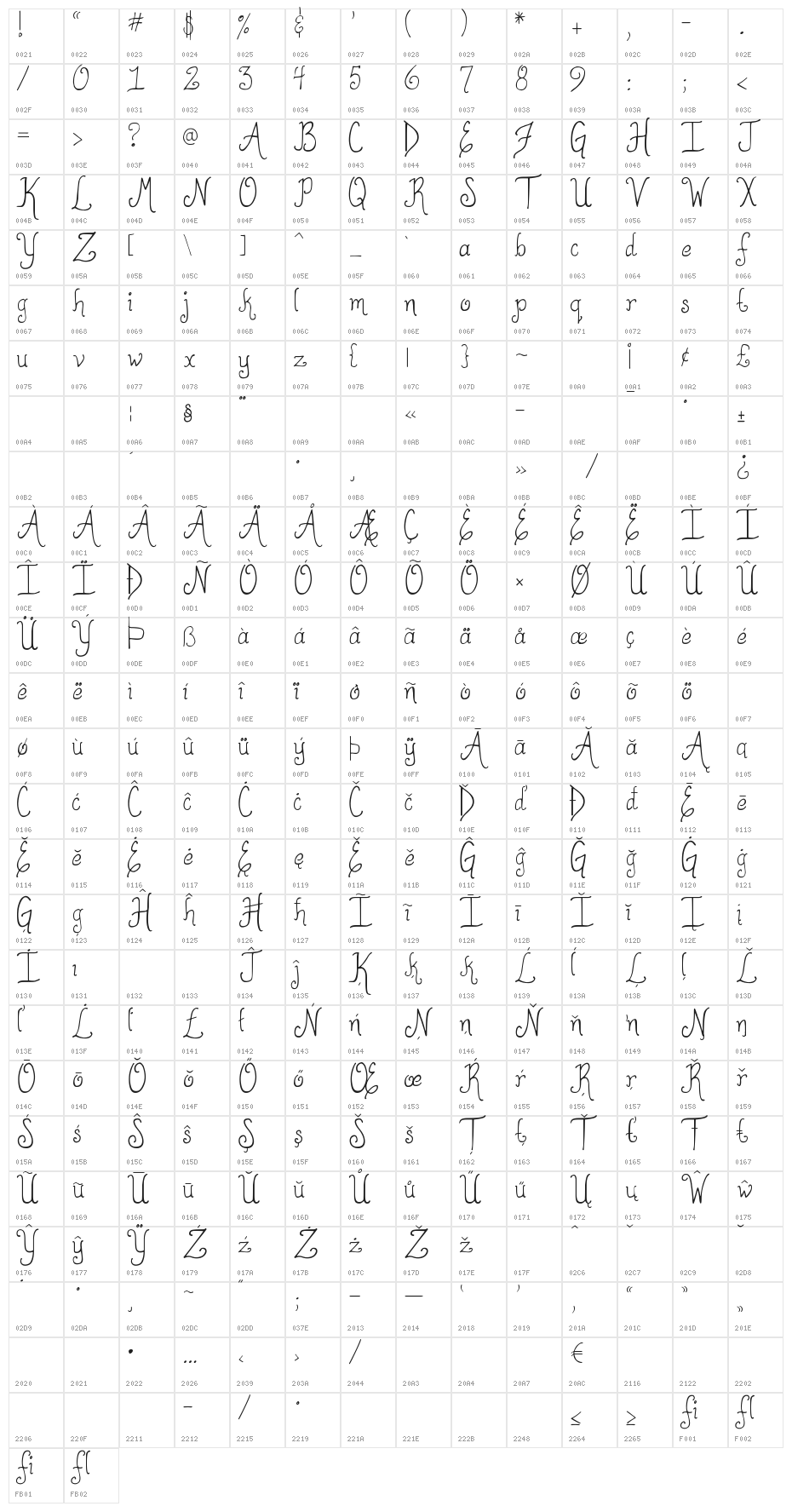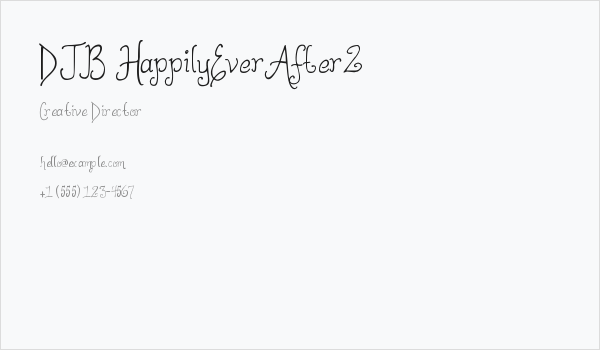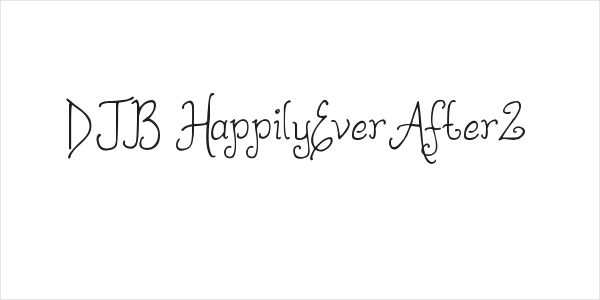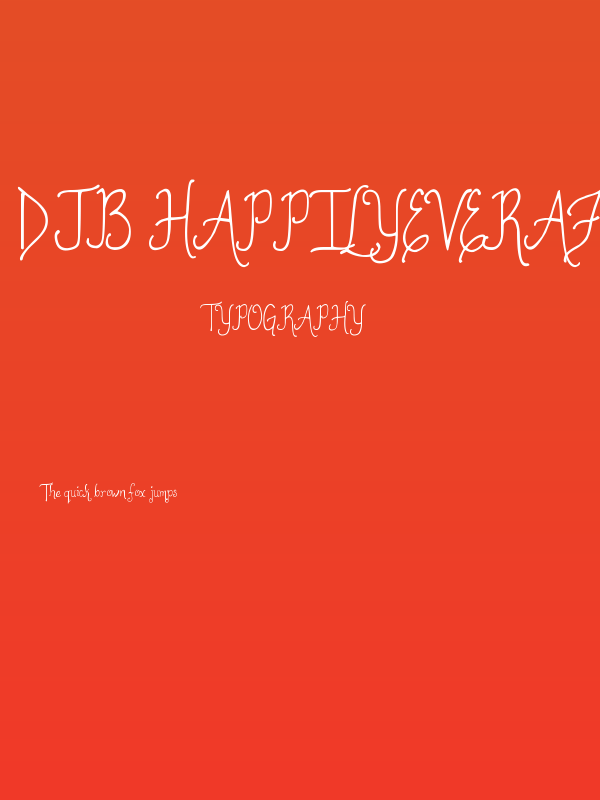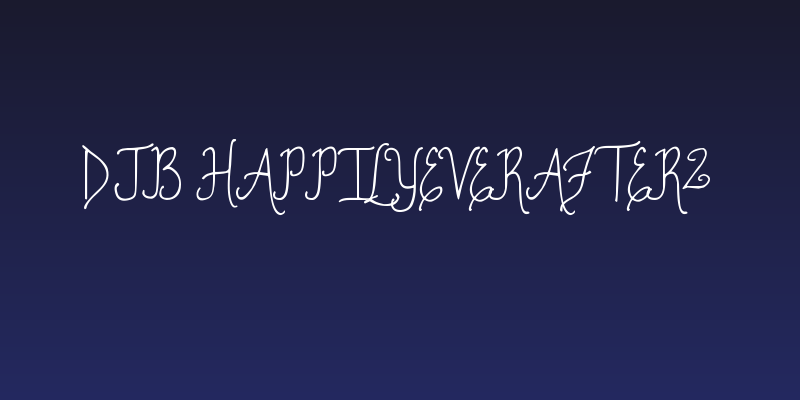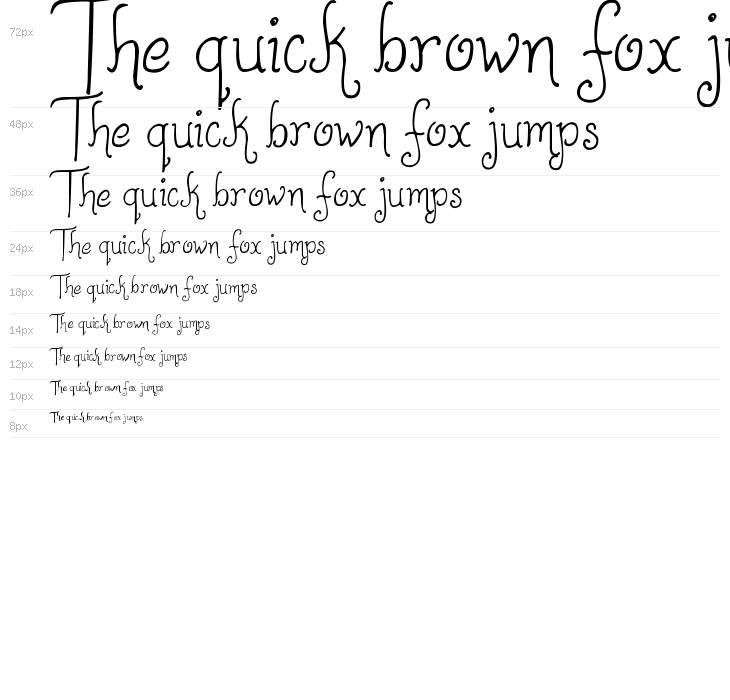
DJB HappilyEverAfter2 Font
DJB HappilyEverAfter2 Description
This font features a whimsical and playful script style with a handwritten appearance. The letters are characterized by their flowing, cursive forms and slight slant, giving them a lively and dynamic feel. The uppercase letters are tall and elegant, while the lowercase letters maintain a consistent flow with occasional loops and curls. The numerals are distinct and maintain the playful style of the alphabet. Special characters are creatively integrated, enhancing the font's overall charm. This font is ideal for projects that require a personal touch and a sense of fun.
Overall StylePlayful, Whimsical
Use CaseHeadlines, Invitations, Creative projects
Proposed ProjectsGreeting cards, wedding invitations, children's books, playful branding.